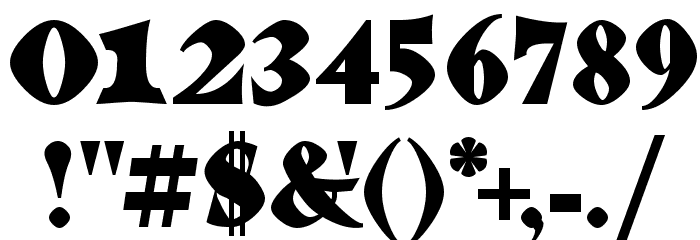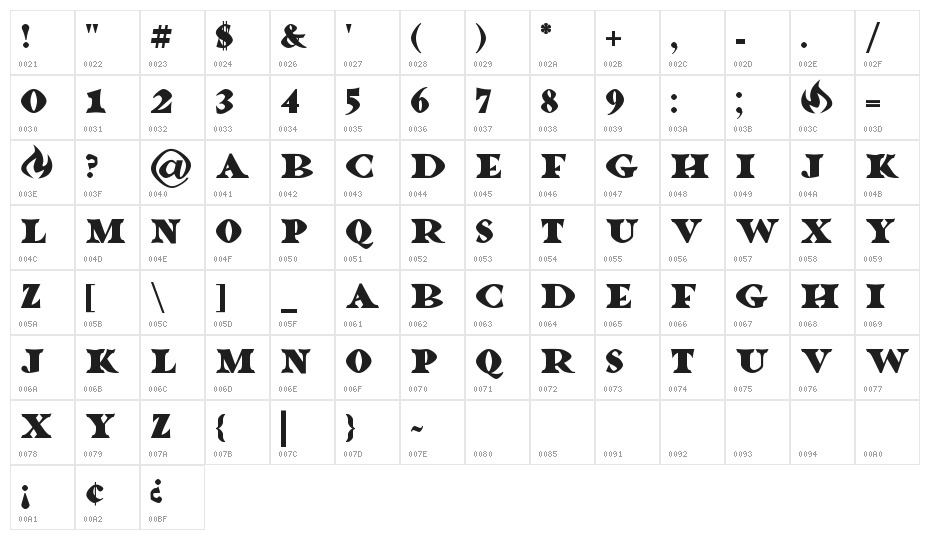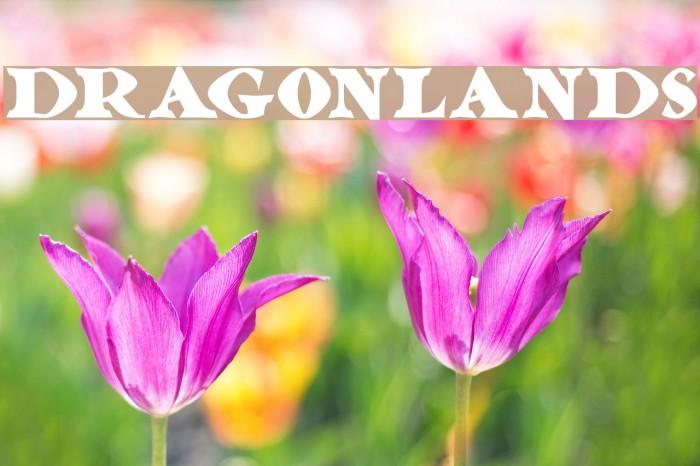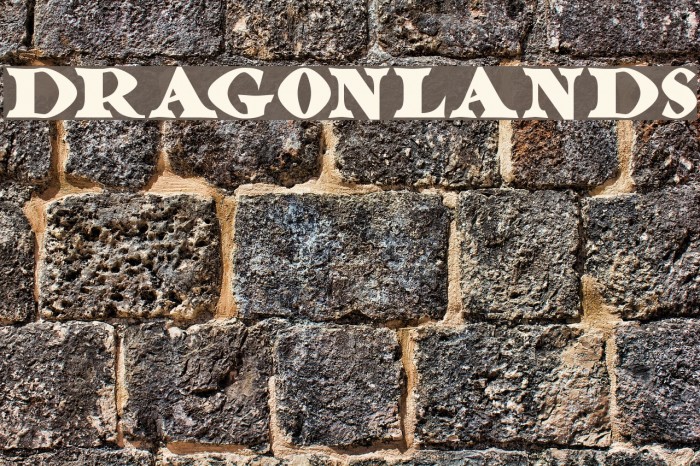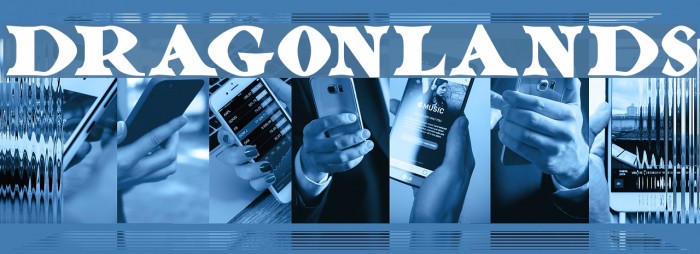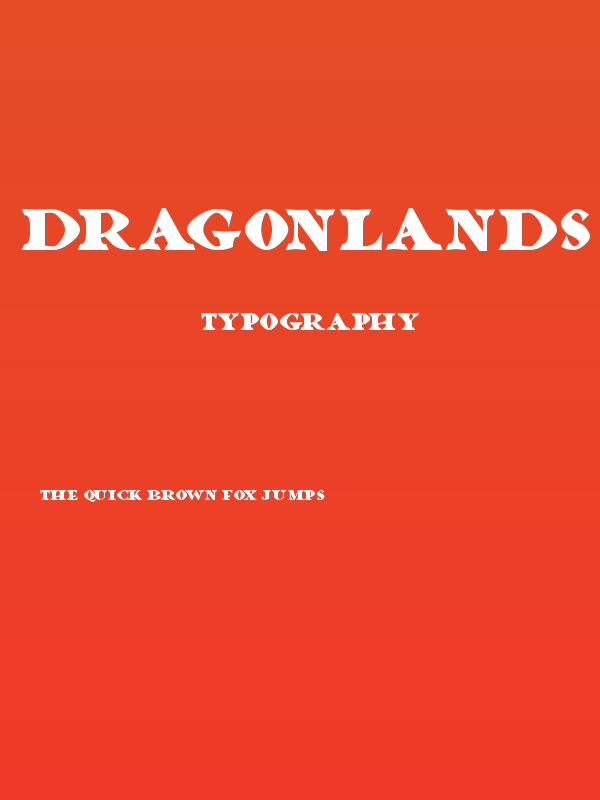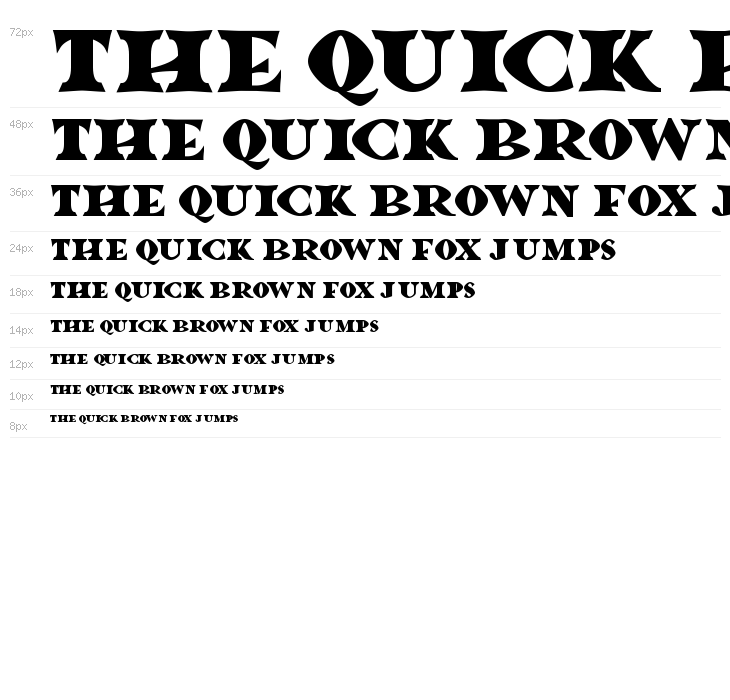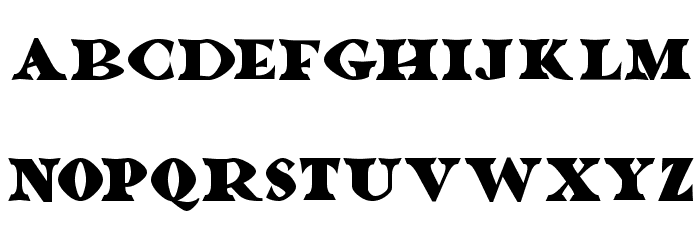
Dragonlands Font
Dragonlands Description
This font features a bold and dramatic style with sharp, angular edges and a medieval flair. The uppercase letters are particularly striking, with a strong presence and unique cuts that give them a distinctive look. The lowercase letters maintain the same boldness, ensuring consistency across the typeface. Numbers and special characters are equally bold, with a design that complements the overall aesthetic. This font is perfect for projects that require a strong, impactful visual presence, such as fantasy-themed designs or branding that seeks to convey strength and tradition.
| Proposed Projects | Ideal for fantasy book covers, game titles, medieval event posters, and strong brand logos. |